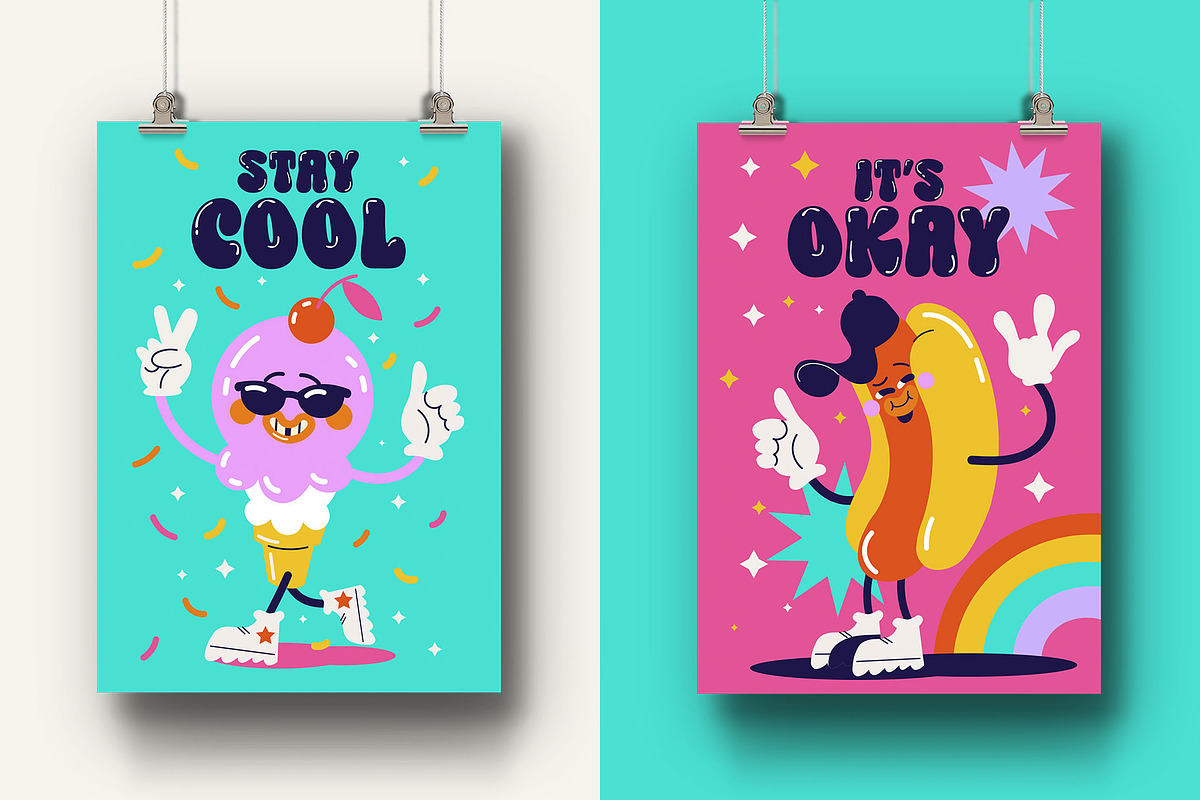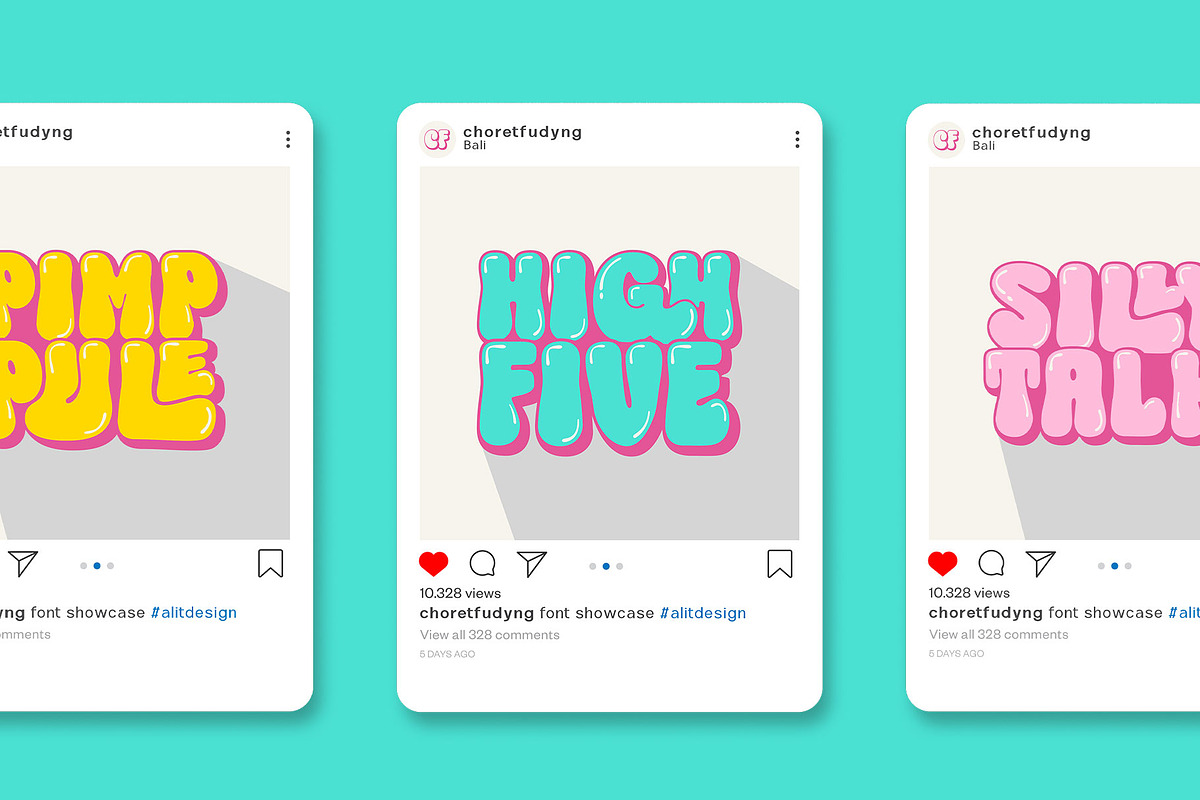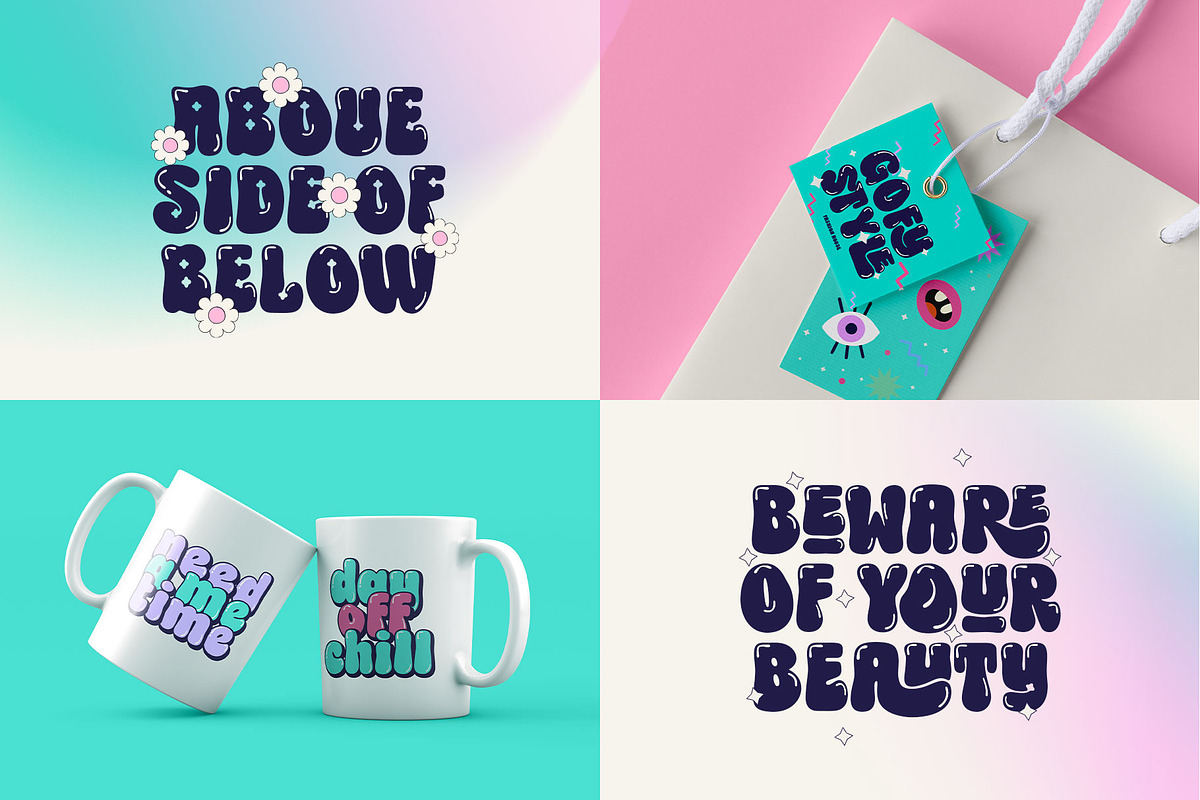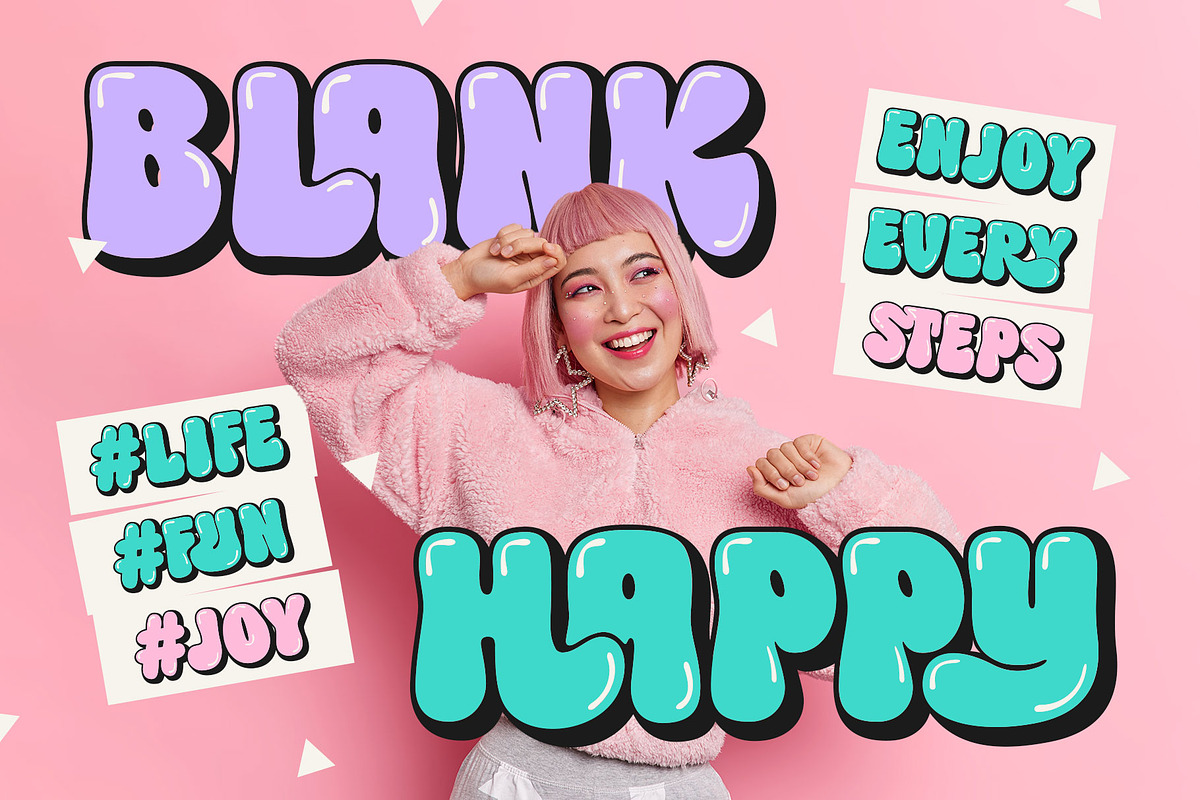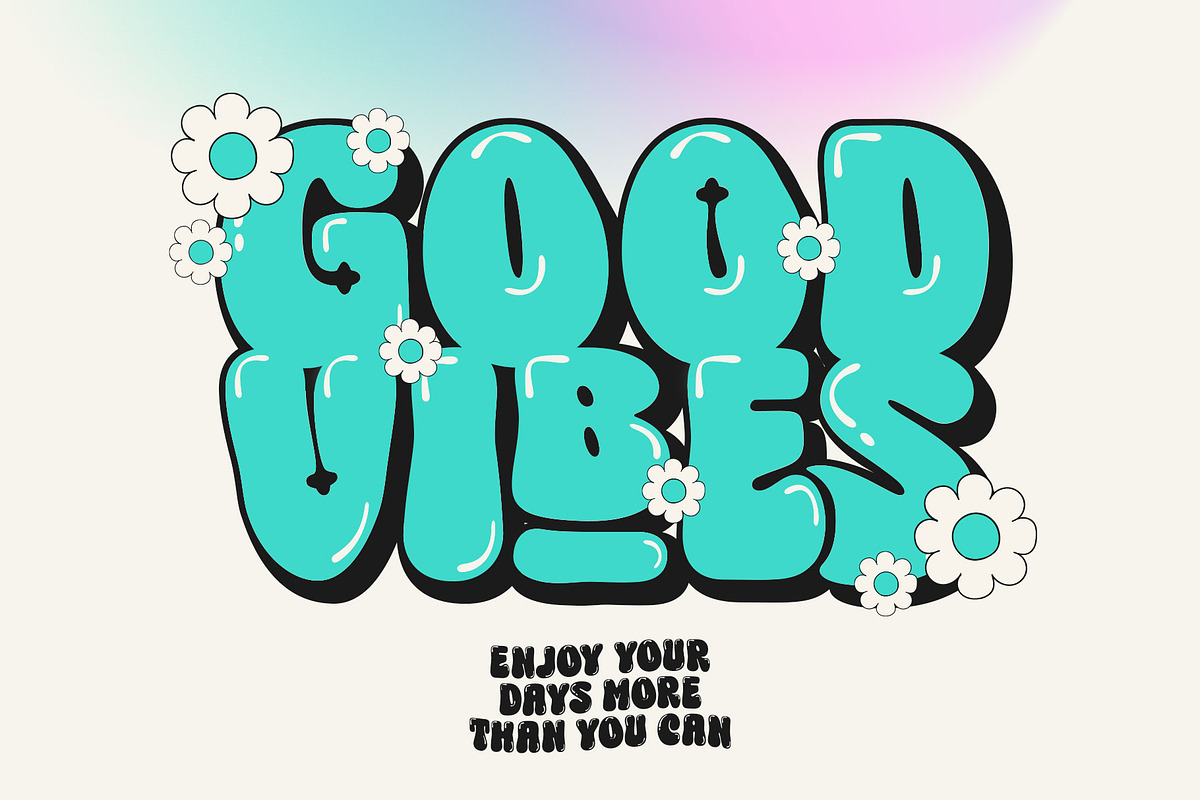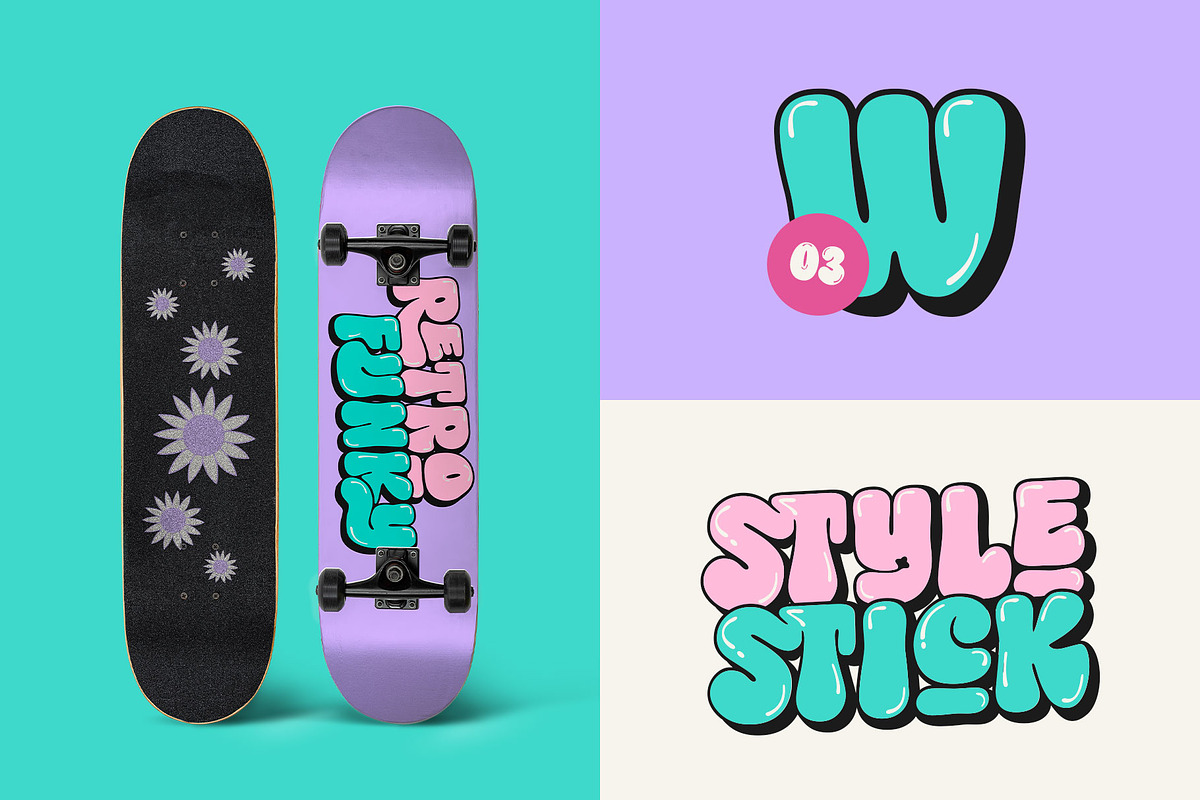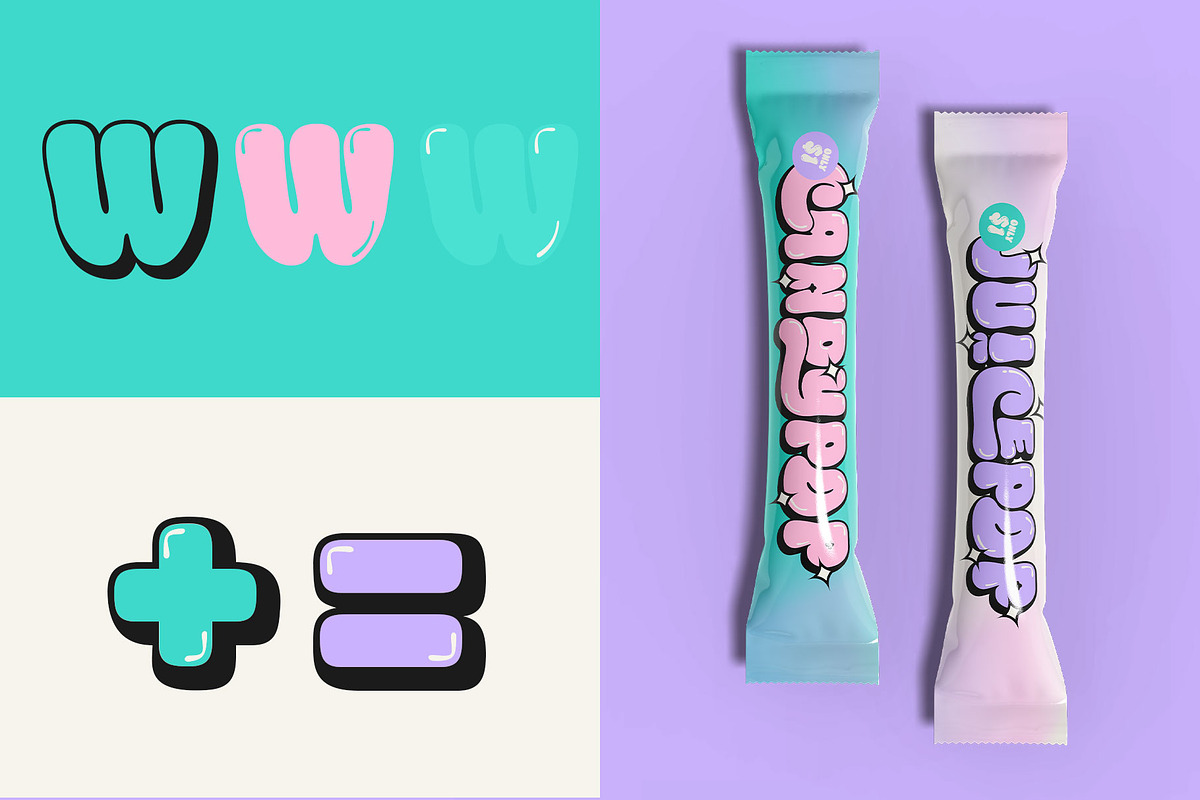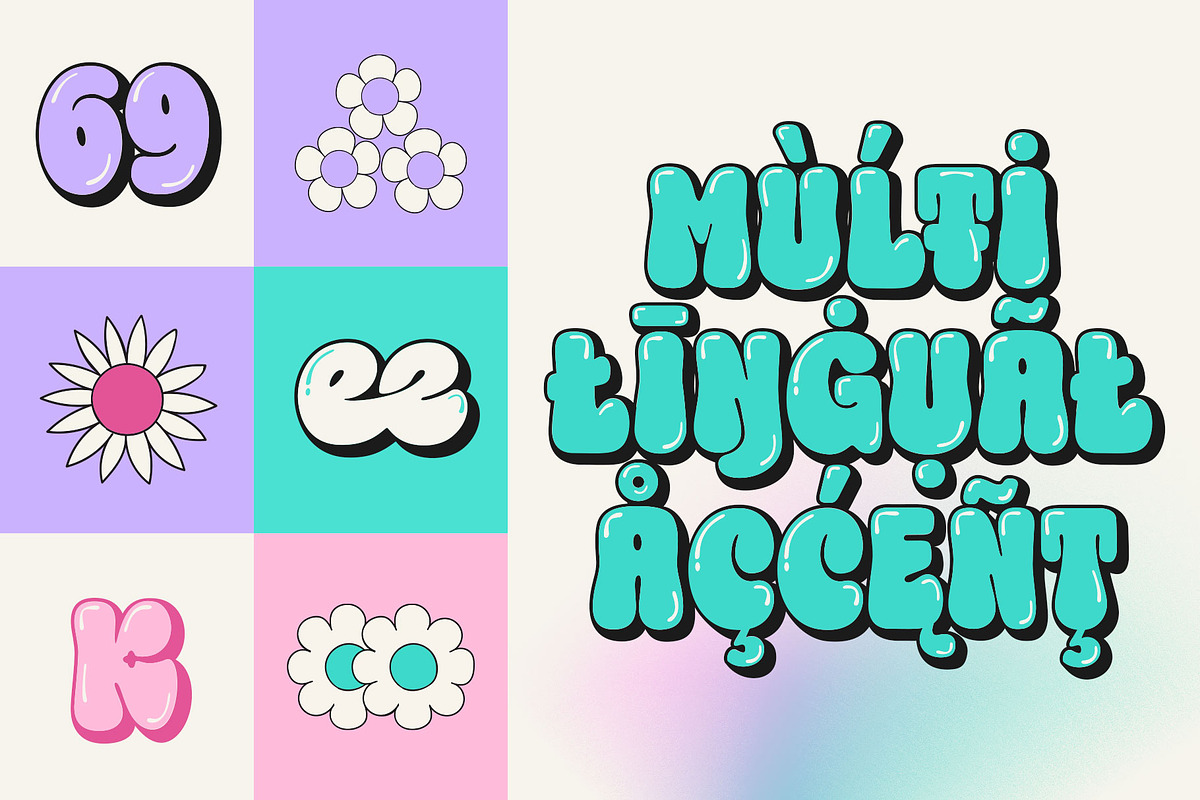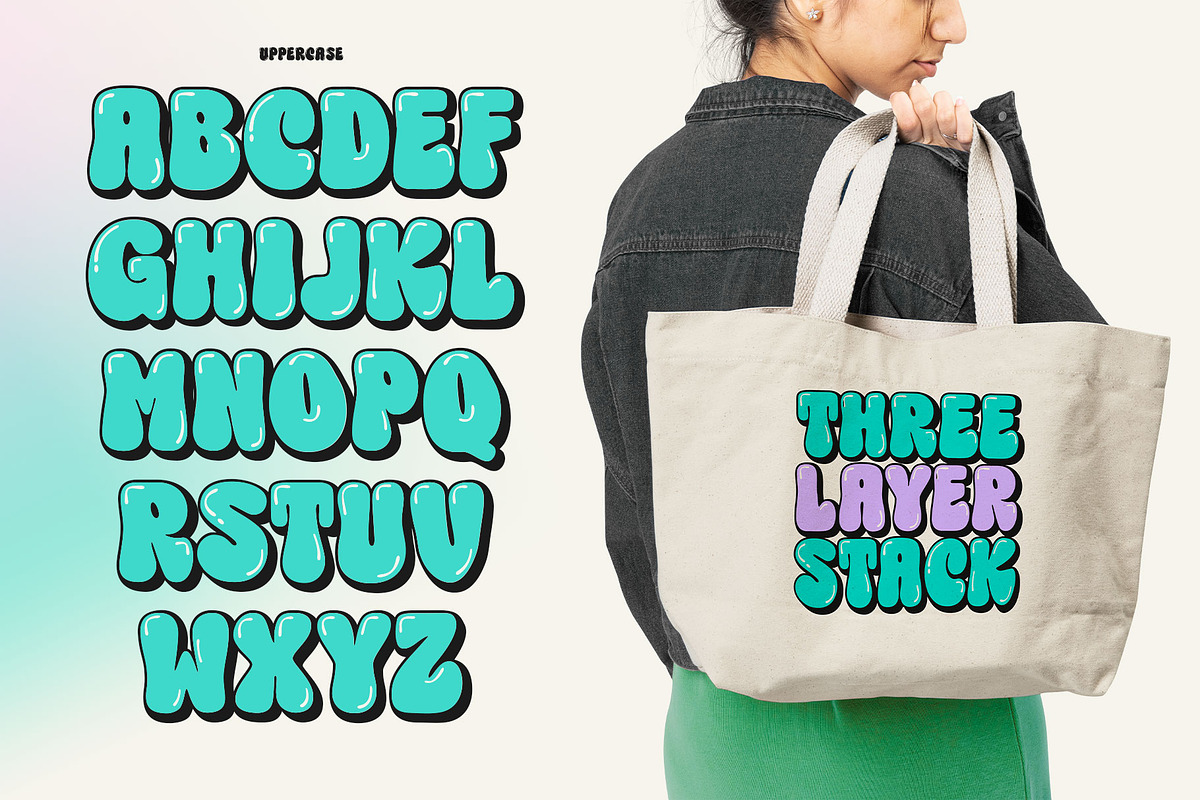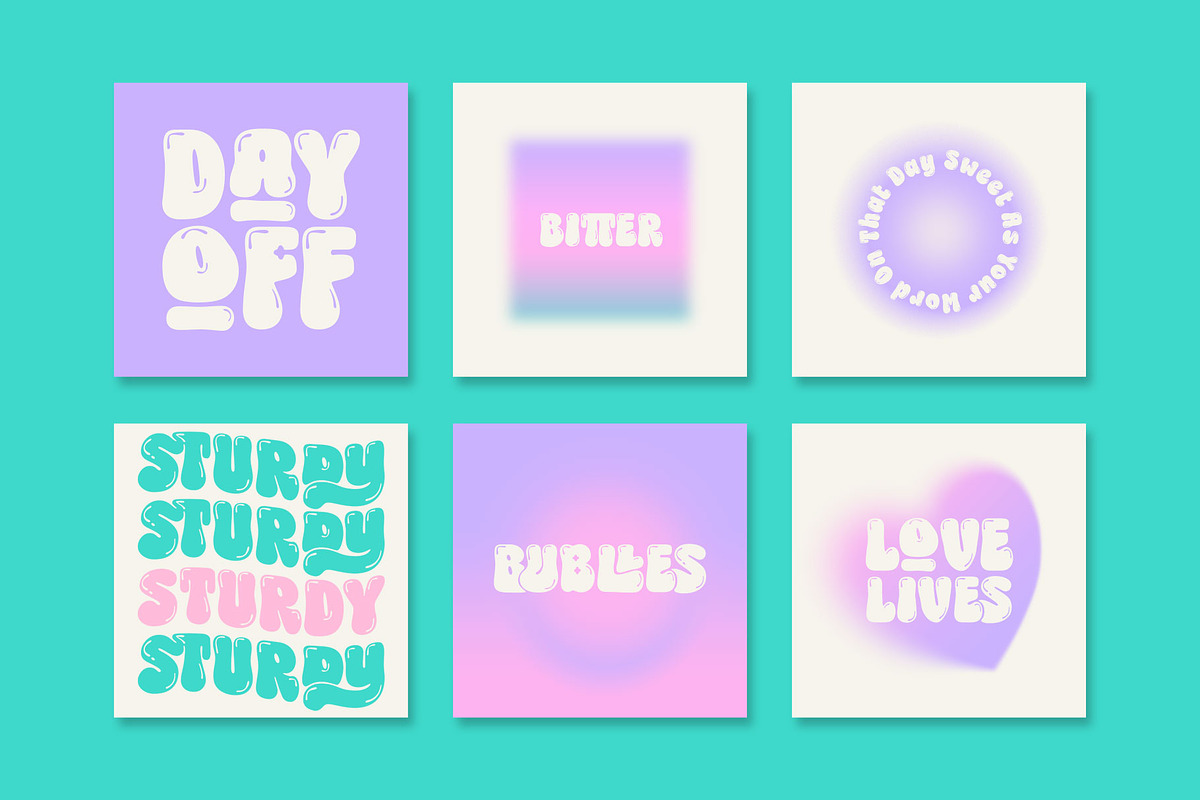
Choret Fudyng Bubble Typeface
Introducing Choret Fudyng, a font with a captivating Bubble style that will elevate your designs to new heights. This font family offers a range of options to suit your creative needs, including the enchanting 3D, classic Regular, and elegant Light variants. Whether you're designing logos, posters, or social media graphics, Choret Fudyng has the perfect style to make your text pop. Each letter is meticulously crafted with attention to detail, ensuring a visually pleasing and harmonious look. With Choret Fudyng, you can effortlessly add depth and dimension to your typography, creating stunning visuals that leave a lasting impression.
Choret Fudyng is not just a font; it's a complete typographic solution. With full support for PUA Unicode, this font allows you to access a wide range of additional characters and symbols, expanding your creative possibilities. It's also designed to be multilingual, enabling you to effortlessly communicate in different languages and alphabets.
But that's not all - Choret Fudyng takes ligatures to the next level. With an extensive collection of ligature options, this font lets you create fluid and seamless connections between characters, enhancing the overall aesthetic appeal of your designs. Whether you're designing logos, branding materials, or invitations, Choret Fudyng's ligatures will add a touch of elegance and sophistication.
Experience the power of Choret Fudyng and unlock a world of typographic versatility. With its PUA Unicode support, multilingual capabilities, and abundant ligature options, this font is a must-have for any designer or creative enthusiast.
Language Support : Latin, Basic, Western European, Central European, South European,Vietnamese.